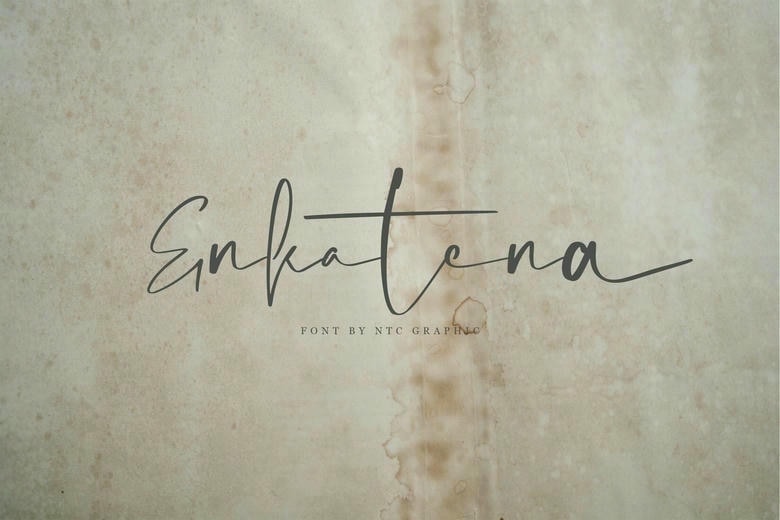
Enkatena Font
Enkatena is a script font that has an elegant taste added to stylized strokes allowing to create sophisticated and unique logos. All characters are drawn with the intention of different shapes for each character and this makes it the best in enhancing your designs from branding to invitations. In cases where logos and packaging or promos need to be designed, Enkatena raises the appearance and quality of your product.
Enkatena Handwritten Script Font